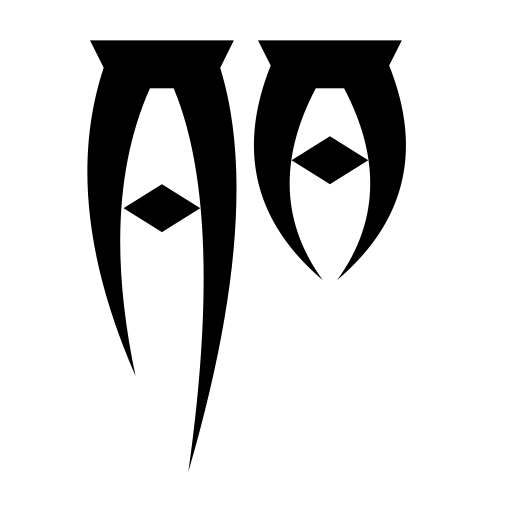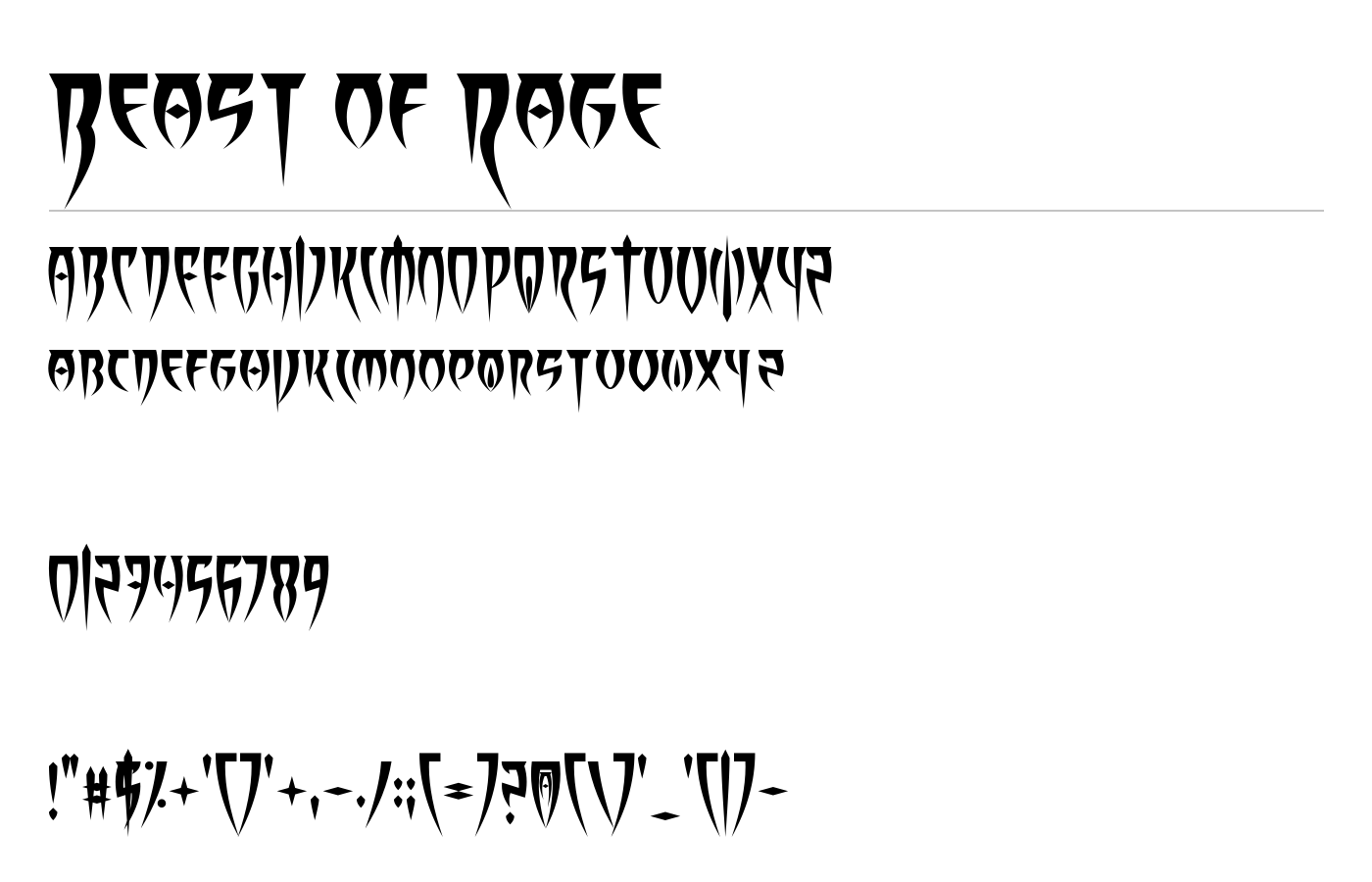
Beast of Rage is a bold, condensed display font with sharp, jagged edges that evoke a fierce, aggressive energy. Its high-contrast strokes and unique letterforms give it a dramatic, intense style perfect for horror, metal, or extreme sports branding. This font works best in headlines, logos, and posters where a strong, impactful visual presence is needed.
Beast of Rage Font
About Beast of Rage Font